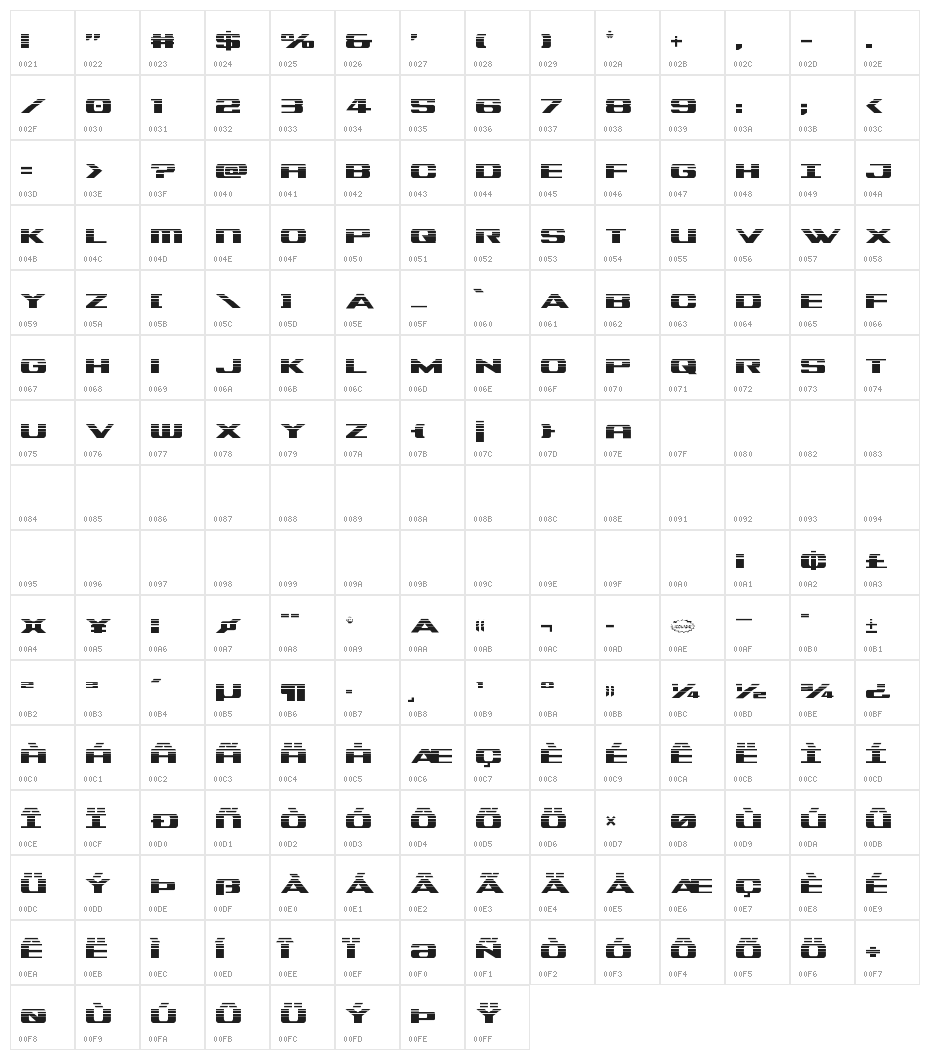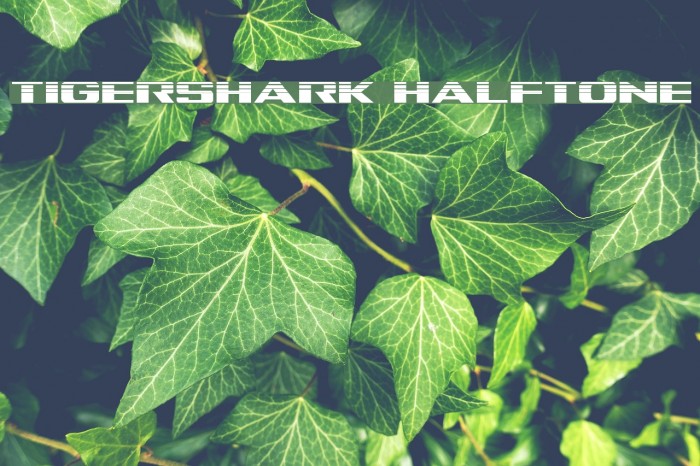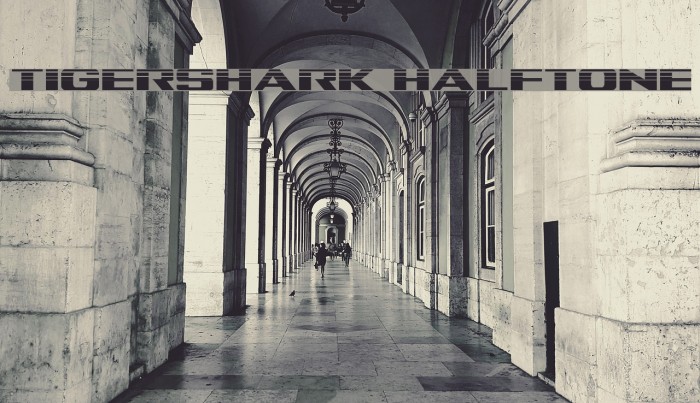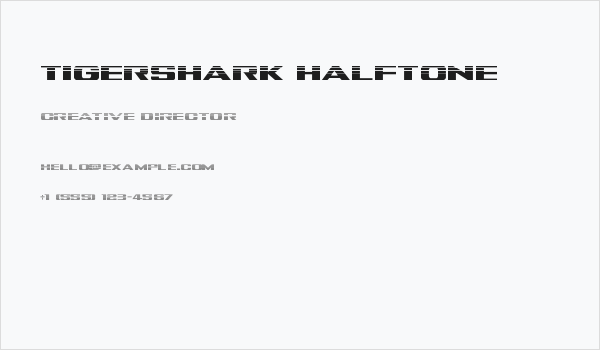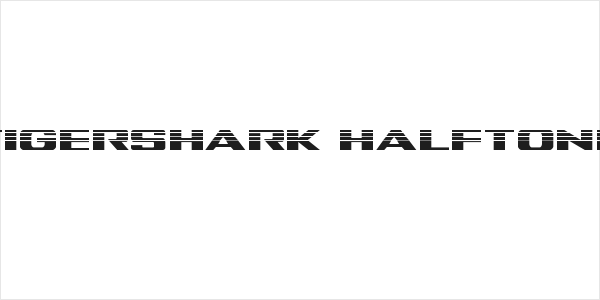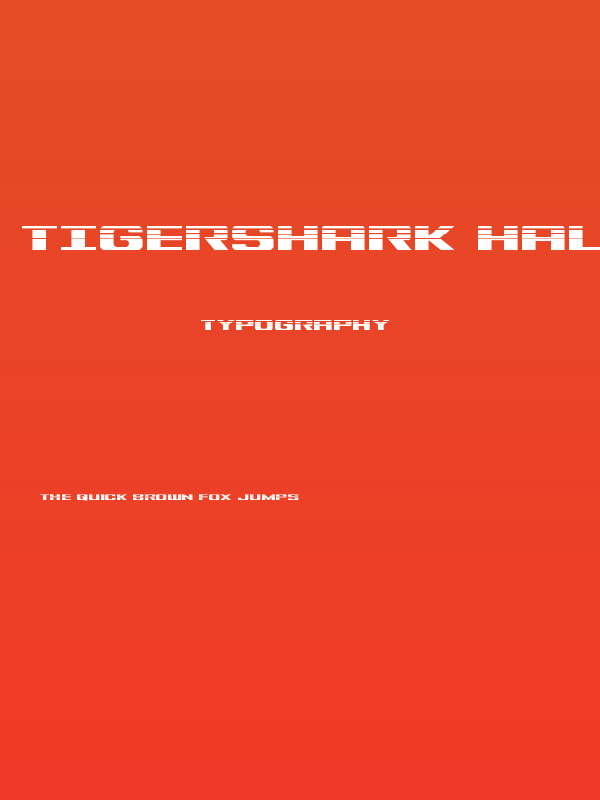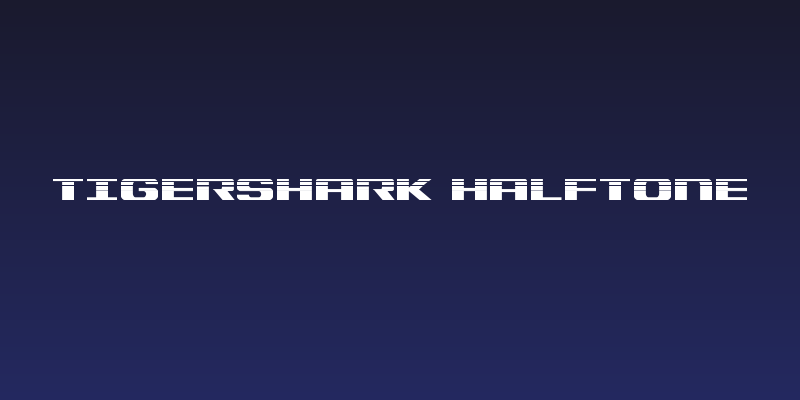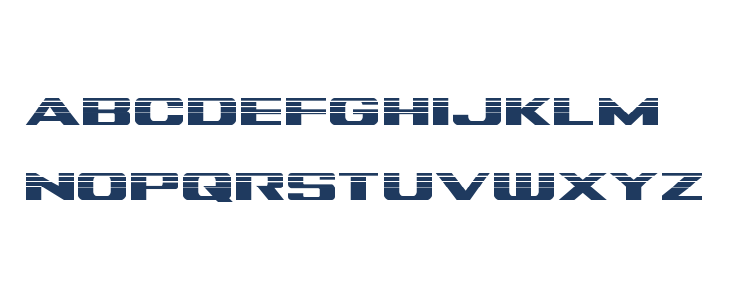
Tigershark Halftone Font
Tigershark Halftone Description
This font features a bold, geometric design with a distinctive halftone pattern that gives it a modern and edgy appearance. The characters are constructed with a series of horizontal lines that create a sense of movement and energy. The uppercase and lowercase letters maintain a consistent style, with sharp angles and clean lines. The numerals and special characters are equally bold, ensuring a cohesive look across all text elements. This font is ideal for projects that require a strong visual impact and a contemporary feel.
| Proposed Projects | Ideal for branding, posters, album covers, and any design needing a striking, modern aesthetic. |